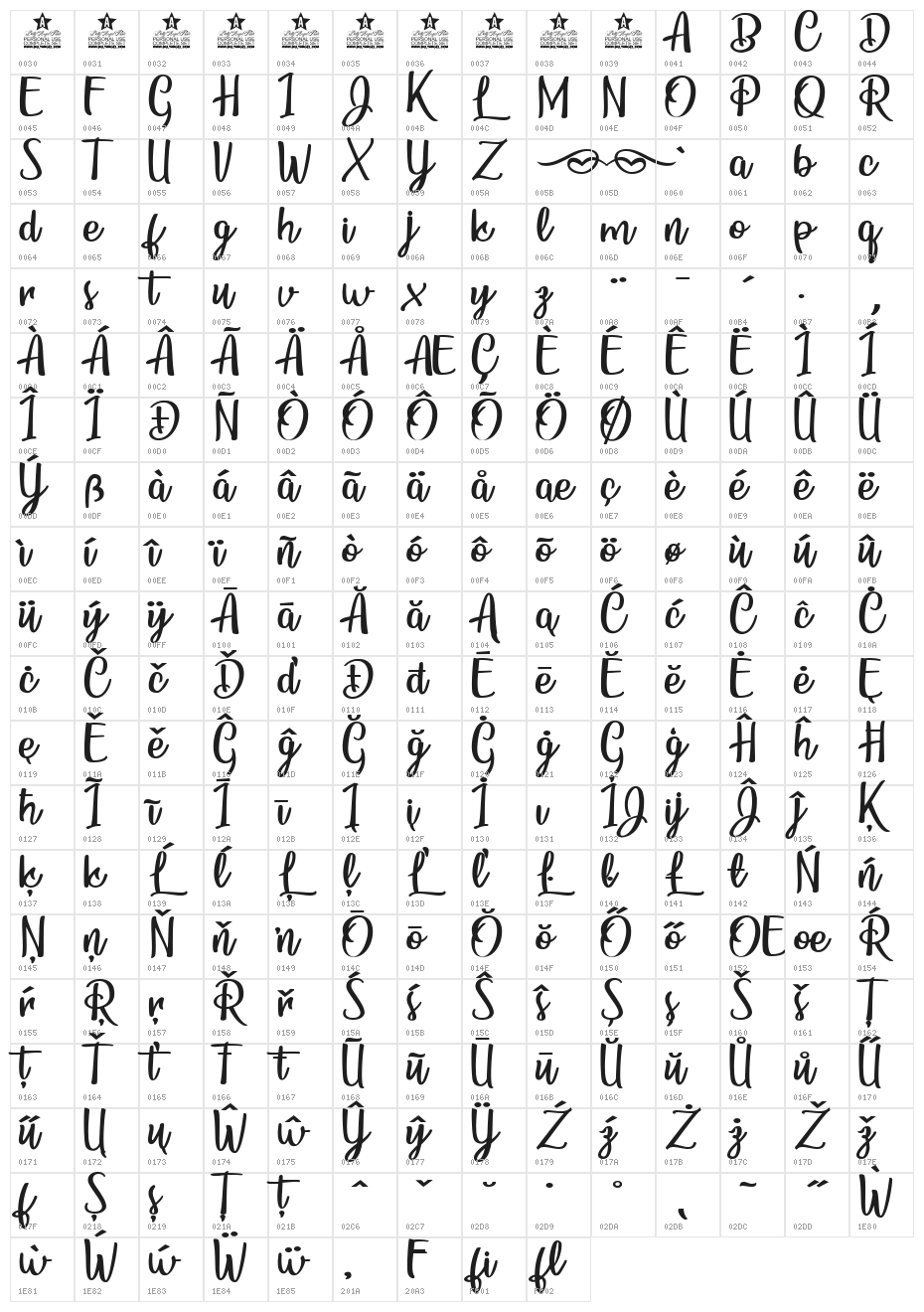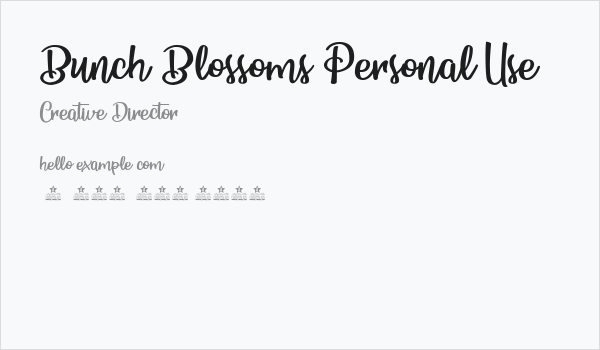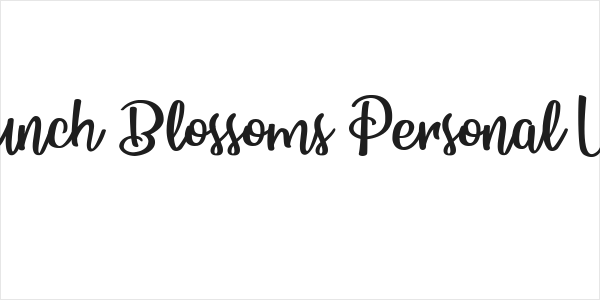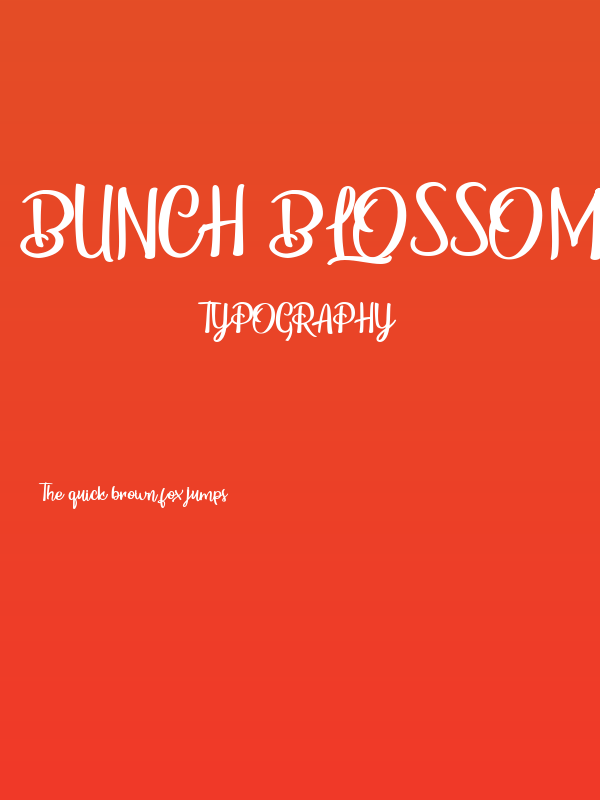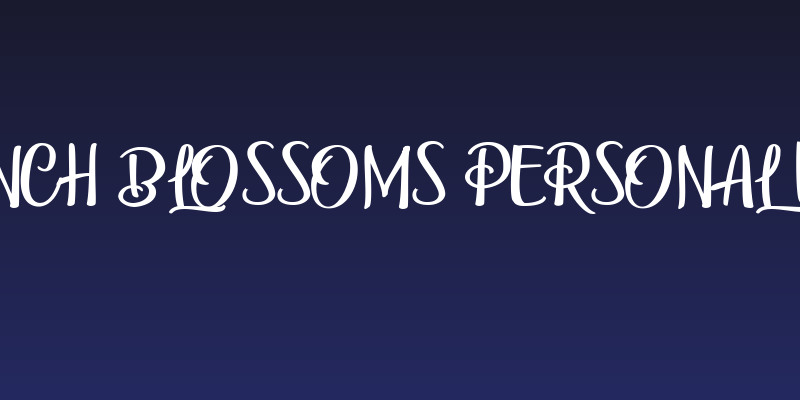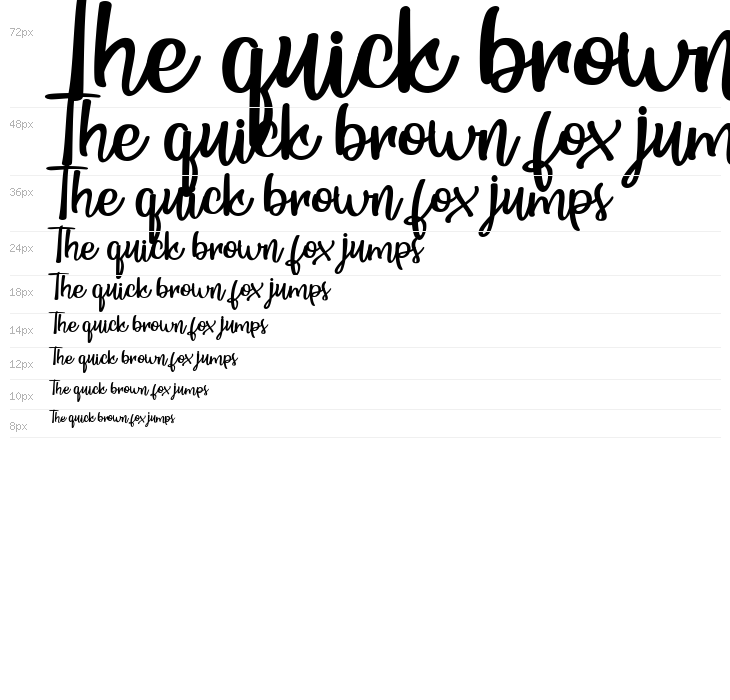
Bunch Blossoms Personal Use Font
Bunch Blossoms Personal Use Description
This font features a playful and energetic script style, characterized by its bold and flowing letterforms. The uppercase letters exhibit a unique blend of curves and sharp angles, giving them a dynamic appearance. The lowercase letters maintain a consistent fluidity, enhancing the font's overall cohesiveness. The strokes are thick and confident, contributing to a strong visual impact. This font is designed to capture attention with its lively and expressive nature, making it suitable for creative and informal applications.
| Proposed Projects | Ideal for greeting cards, posters, branding projects, and social media graphics where a lively and expressive touch is desired. |